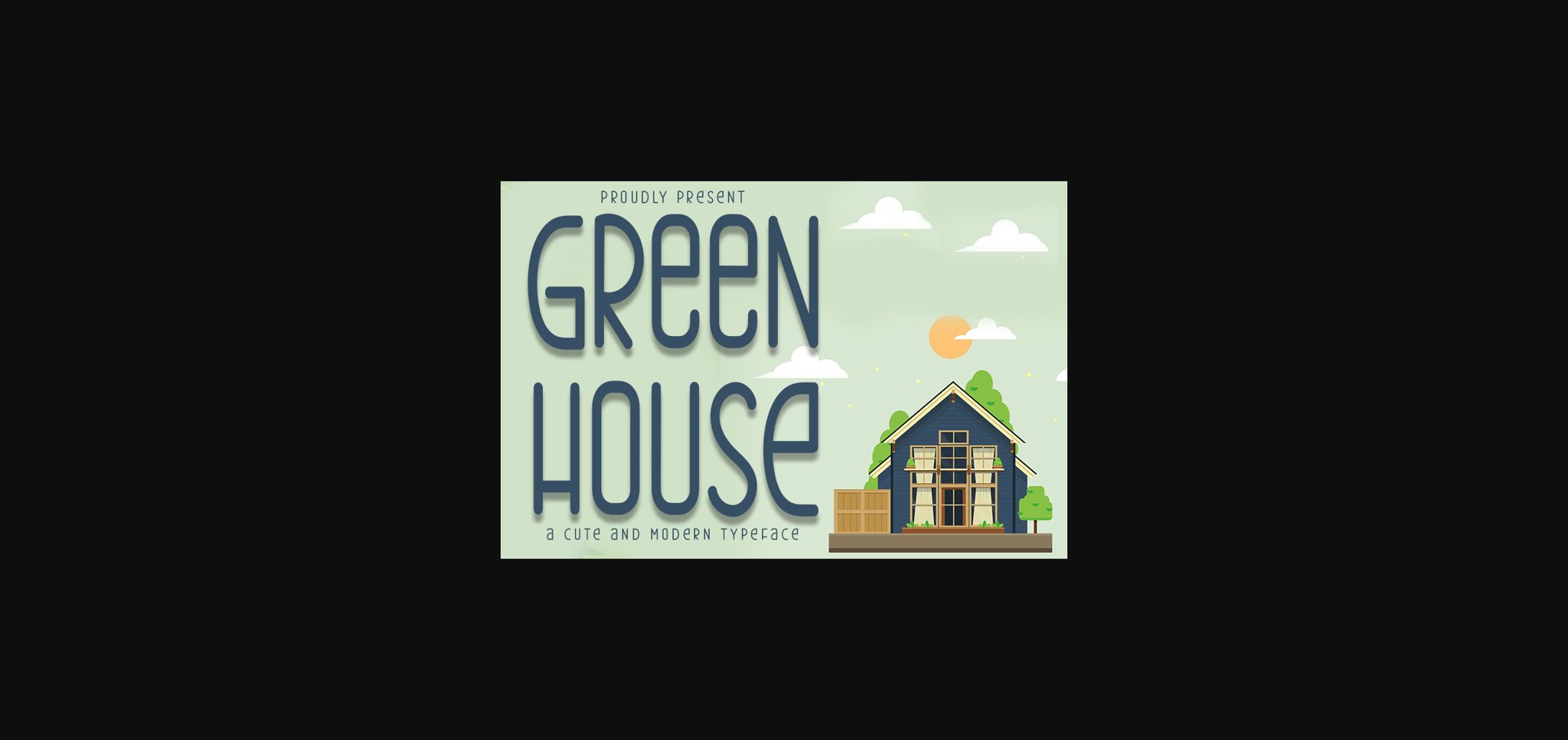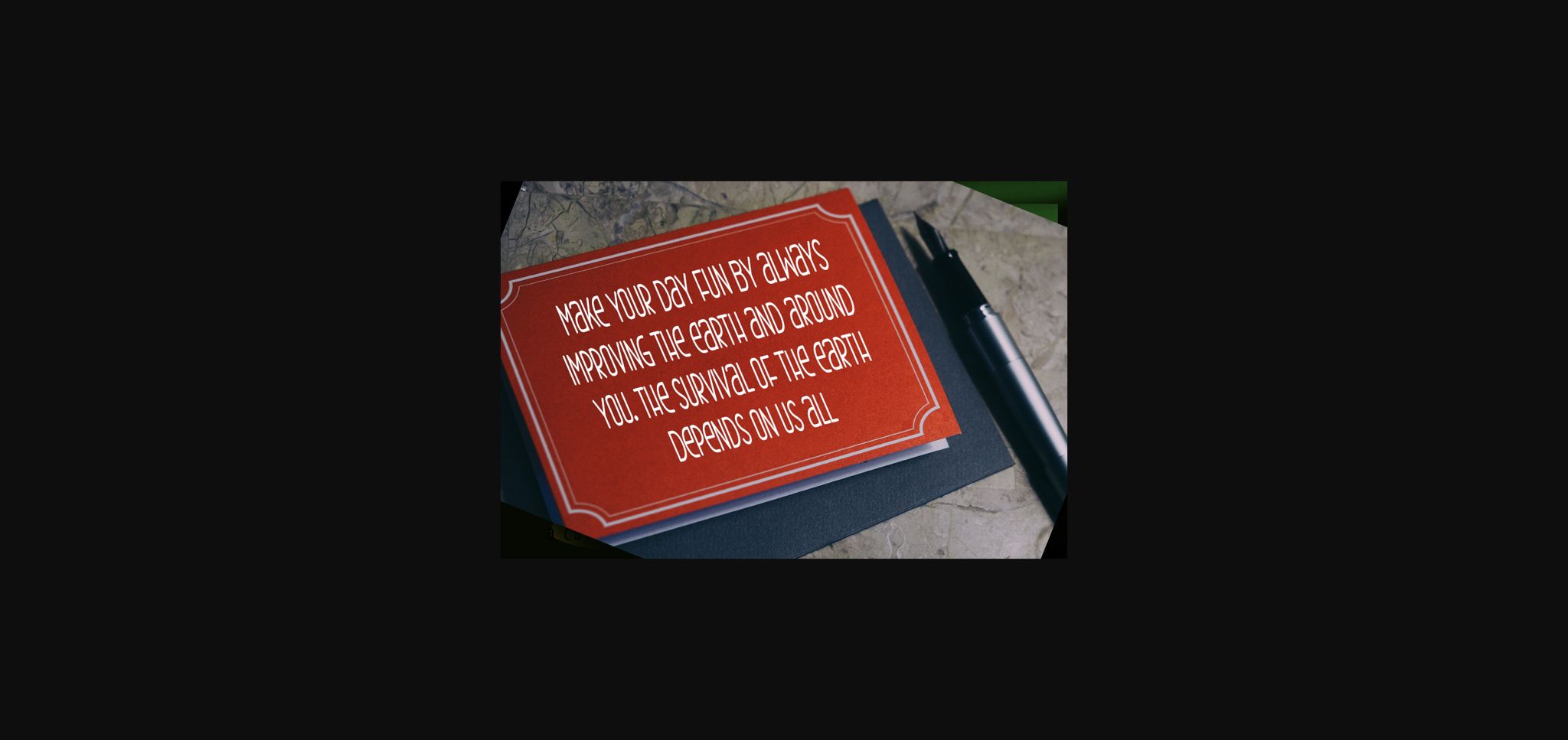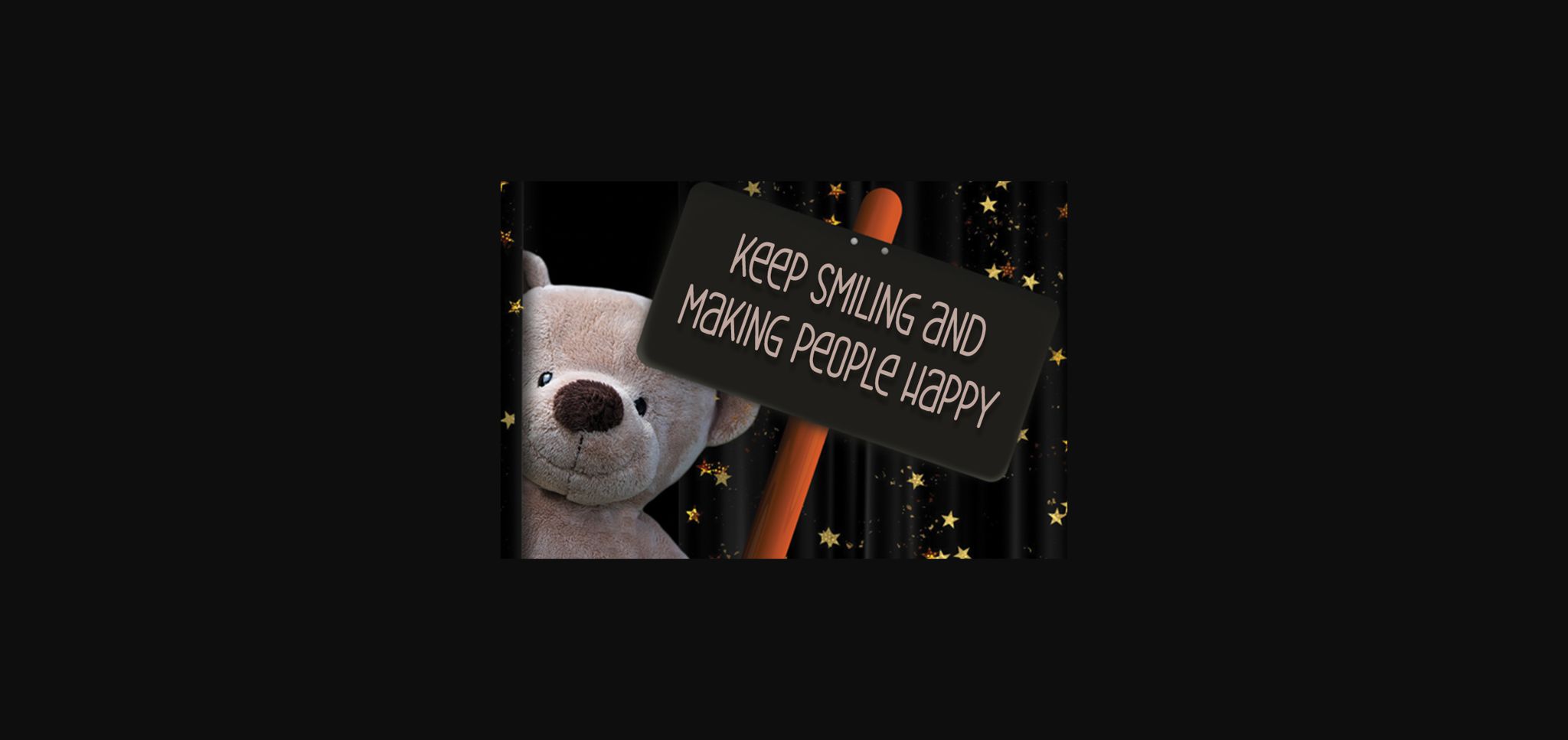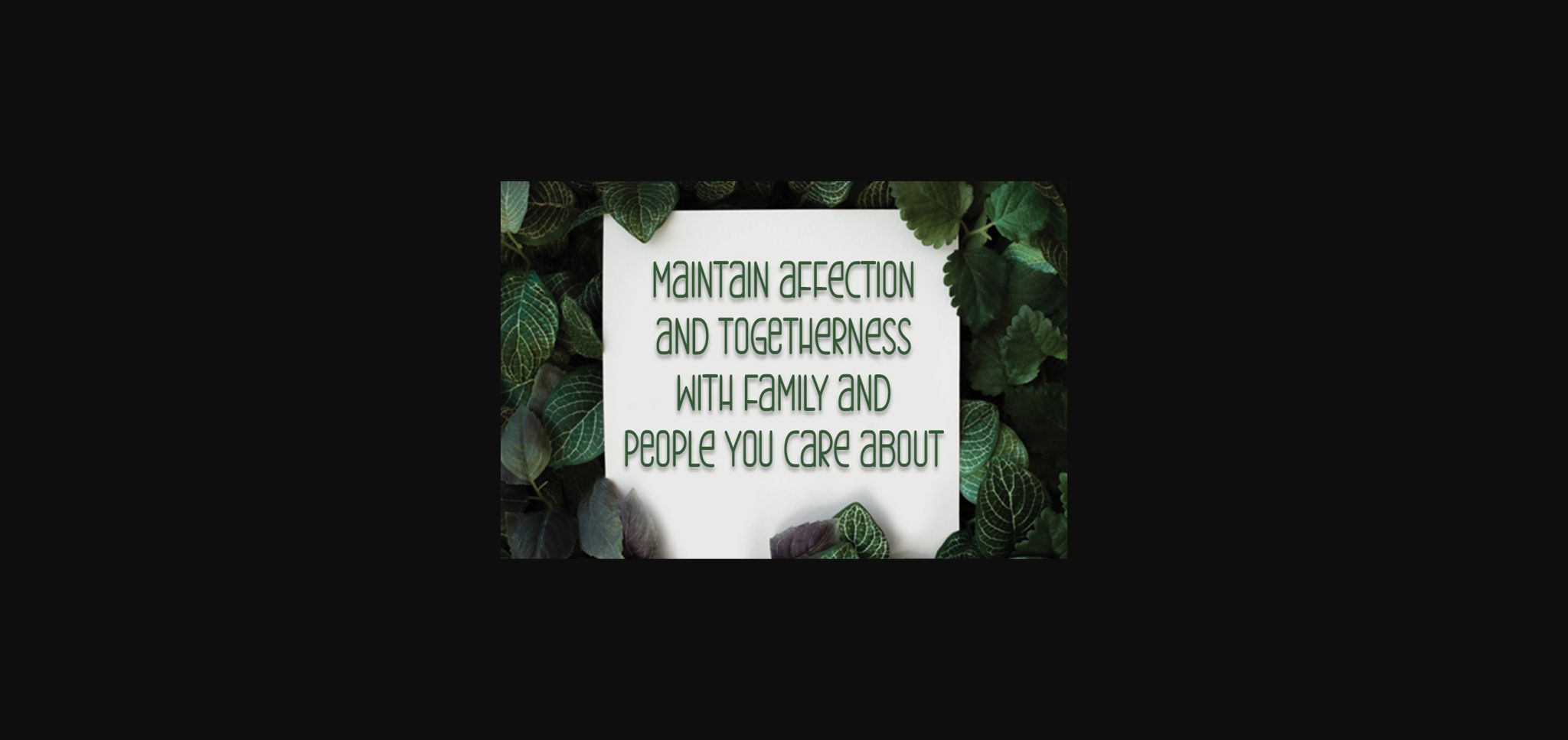
Green House Font
About Green House Font
Green House is a minimal and geometric sans serif font. It can easily be matched to an incredibly large set of projects, so add it to your creative ideas and notice how it makes them stand out!